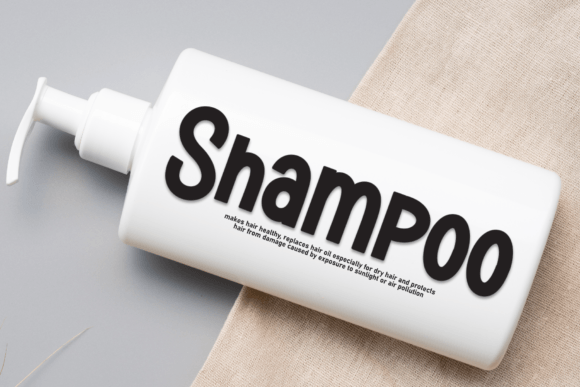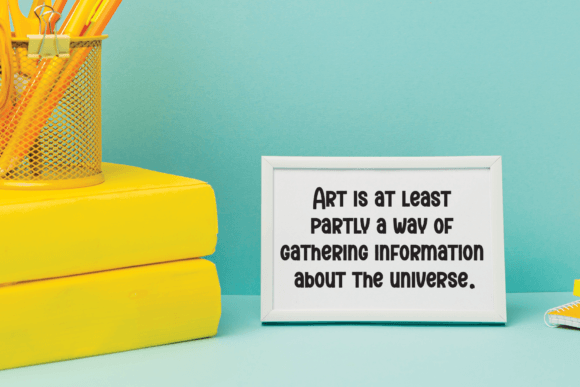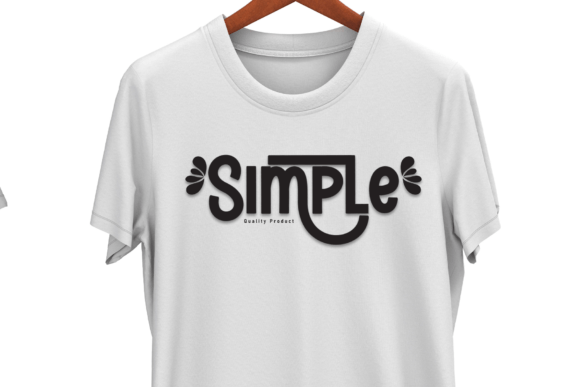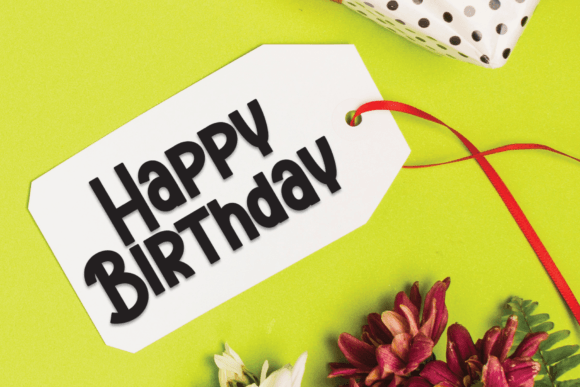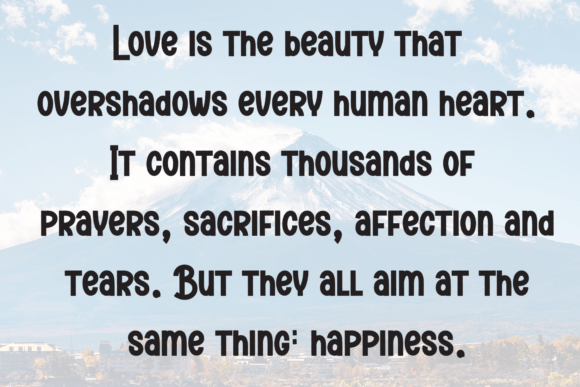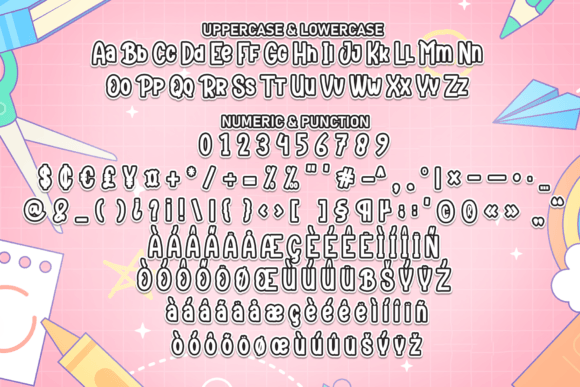
Introducing Back School Font: The Perfect Casual Display Font for Your Designs
Are you tired of using the same old fonts in your designs? Do you want to add a touch of warmth and authenticity to your projects? Look no further than Back School Font, a casual display font that captures the essence of a relaxed and friendly vibe. With its natural, flowing strokes, this font is perfect for personal projects, social media, and invitations.
The Characteristics of Back School Font
Back School Font is a unique and charming font that boasts a range of characteristics that make it stand out from the crowd. Its natural, flowing strokes give it an effortless and charming touch, making it perfect for designers who want to add a personal touch to their work. The font’s easygoing style adds warmth and authenticity, making it ideal for projects that require a friendly and approachable tone.
What Makes Back School Font So Versatile?
One of the things that makes Back School Font so versatile is its ability to be used in a variety of design projects. Whether you’re working on a personal project, creating social media graphics, or designing invitations, this font is sure to bring a touch of charm and personality to your work. Its casual and relaxed vibe makes it perfect for:
- Personal projects, such as photo albums and scrapbooking
- Social media graphics, including Instagram posts and Facebook covers
- Invitations, such as birthday and wedding invitations
The Benefits of Using Back School Font
So why should you choose Back School Font for your design projects? Here are just a few benefits of using this charming font:
- Easy to read: Despite its casual and relaxed vibe, Back School Font is easy to read and understand, making it perfect for body text and headings.
- Unique and charming: This font has a unique and charming personality that will set your designs apart from the crowd.
- Versatile: Back School Font can be used in a variety of design projects, from personal to commercial.
- Authentic: The font’s easygoing style adds warmth and authenticity to your designs, making them feel more approachable and friendly.
How to Use Back School Font in Your Designs
Using Back School Font in your designs is easy. Here are a few tips to get you started:
- Pair it with other fonts: Back School Font pairs well with other fonts, such as sans-serif and serif fonts. Experiment with different combinations to find the perfect look for your design.
- Use it for headings and titles: This font is perfect for headings and titles, where you want to make a statement and add some personality to your design.
- Experiment with different colors: Back School Font looks great in a range of colors, from bold and bright to soft and pastel.
In conclusion, Back School Font is a casual display font that captures the essence of a relaxed and friendly vibe. With its natural, flowing strokes and easygoing style, this font is perfect for designers who want to add a touch of warmth and authenticity to their work. Whether you’re working on a personal project, creating social media graphics, or designing invitations, Back School Font is sure to bring a charming and effortless touch to your designs.
So why not give Back School Font a try? With its versatility, unique personality, and range of benefits, it’s the perfect addition to any designer’s toolkit.